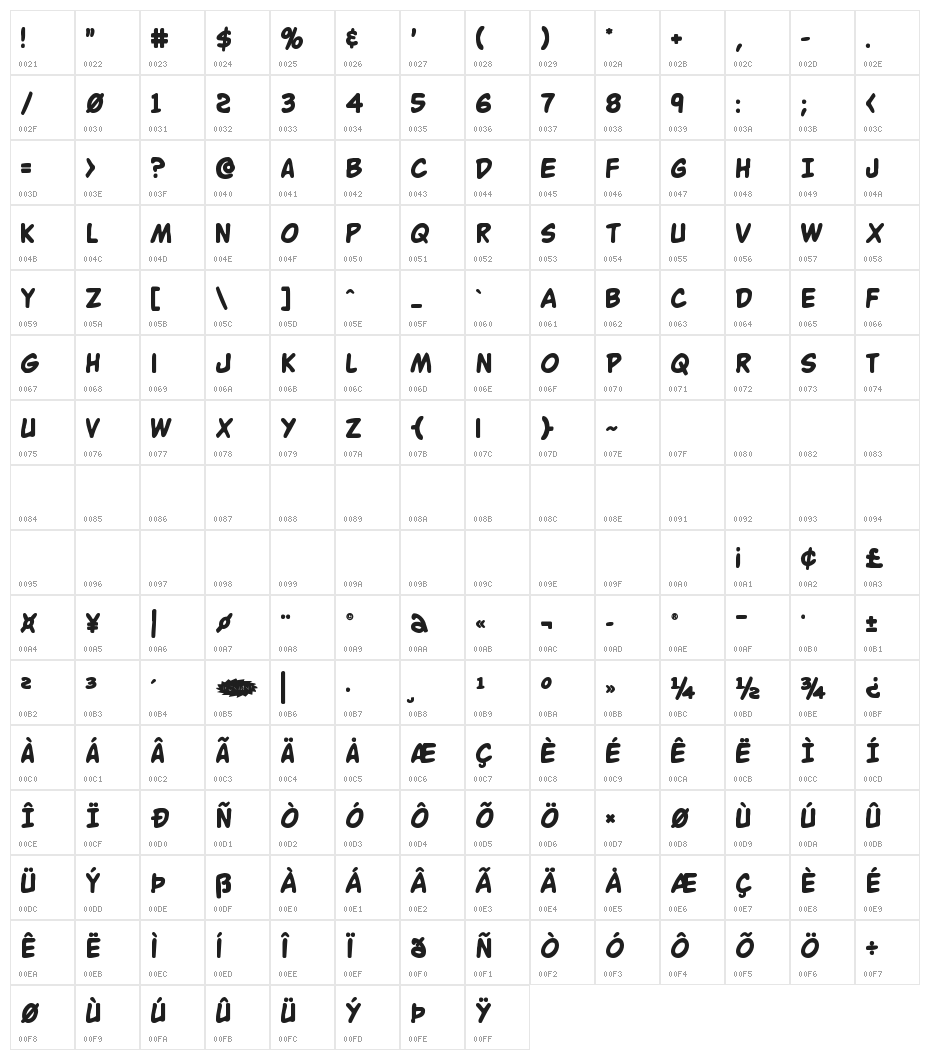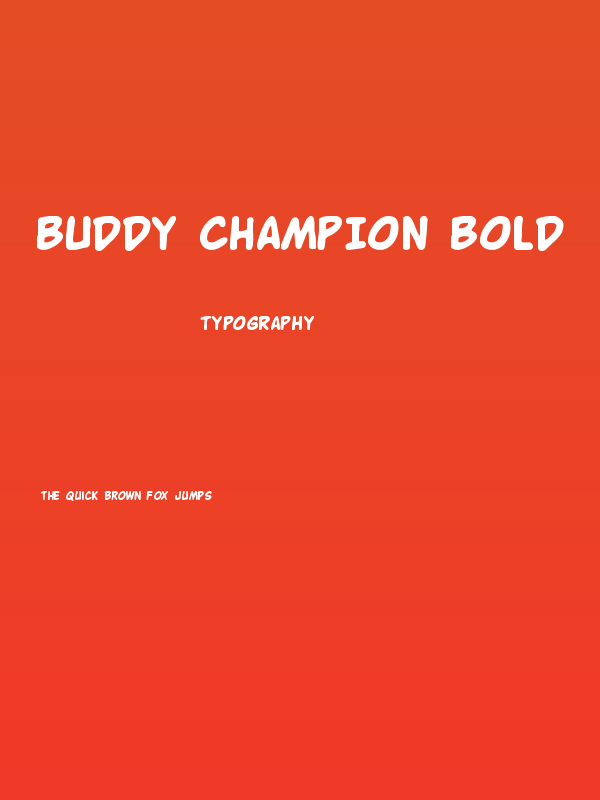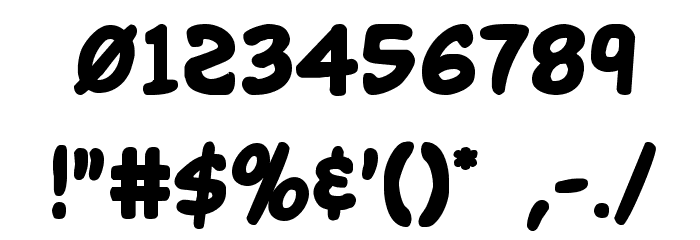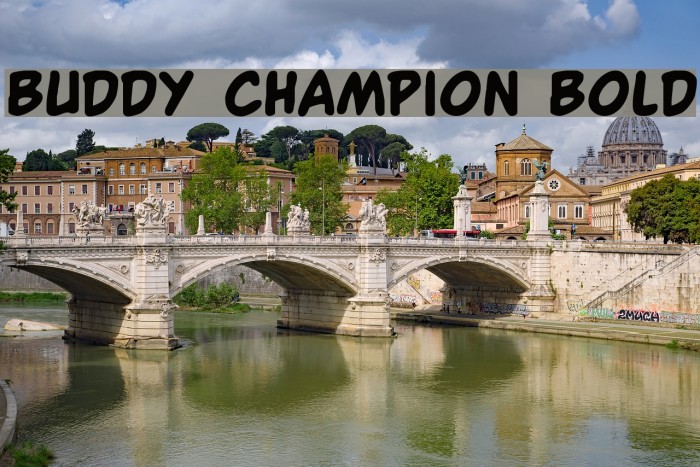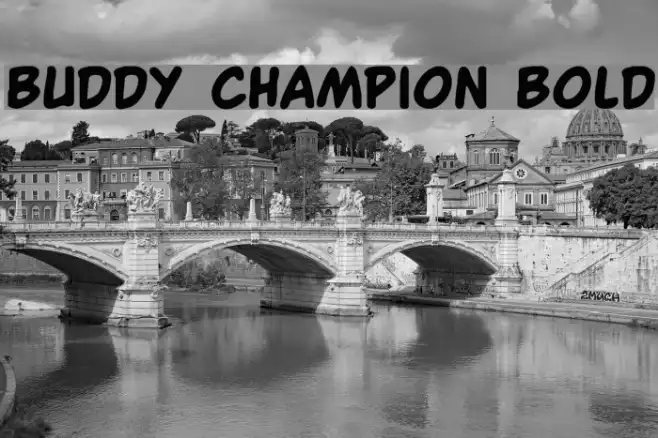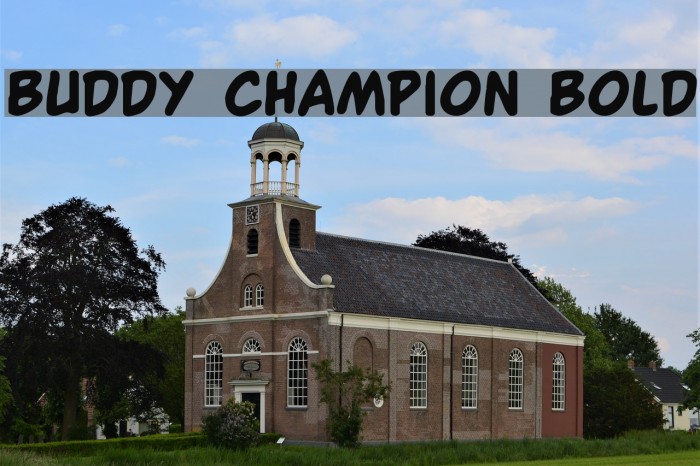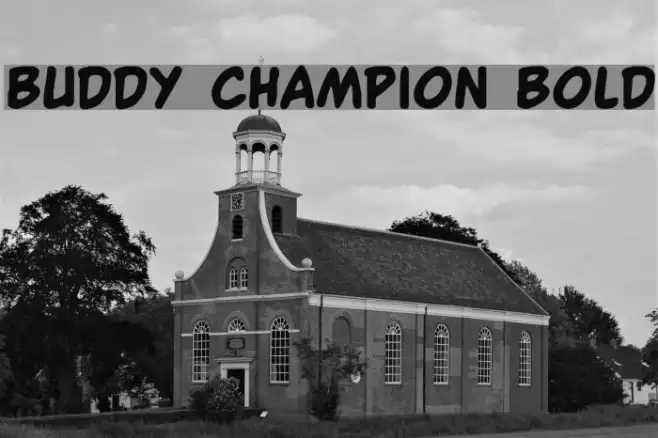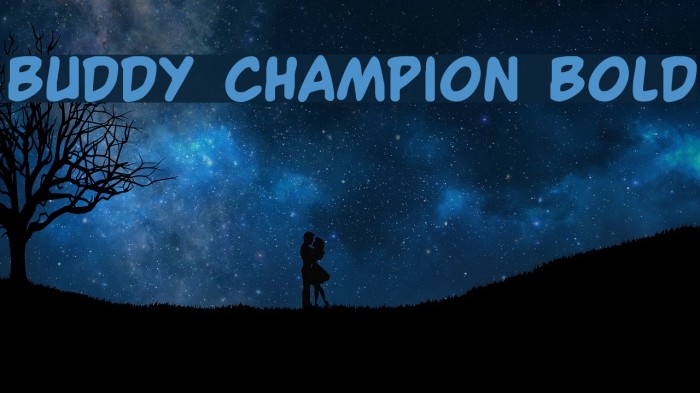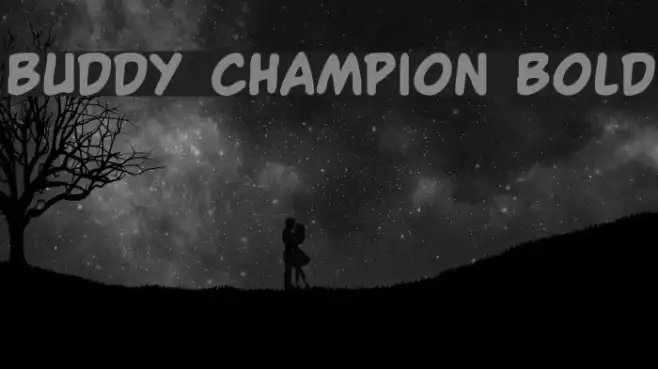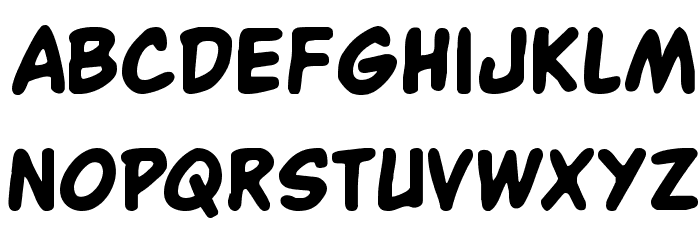
Buddy Champion Bold Font
Buddy Champion Bold Description
This font features a bold, playful style with rounded edges and a slightly irregular form, giving it a hand-drawn appearance. The characters are thick and substantial, providing a strong visual impact. The uppercase and lowercase letters maintain a consistent weight, contributing to a cohesive look. The numbers and special characters follow the same design principles, ensuring uniformity across all glyphs. Its friendly and approachable design makes it suitable for projects that require a casual and fun aesthetic.
| Overall Style | Playful |
| Proposed Projects | Ideal for children's books, playful branding, casual invitations, and posters. |